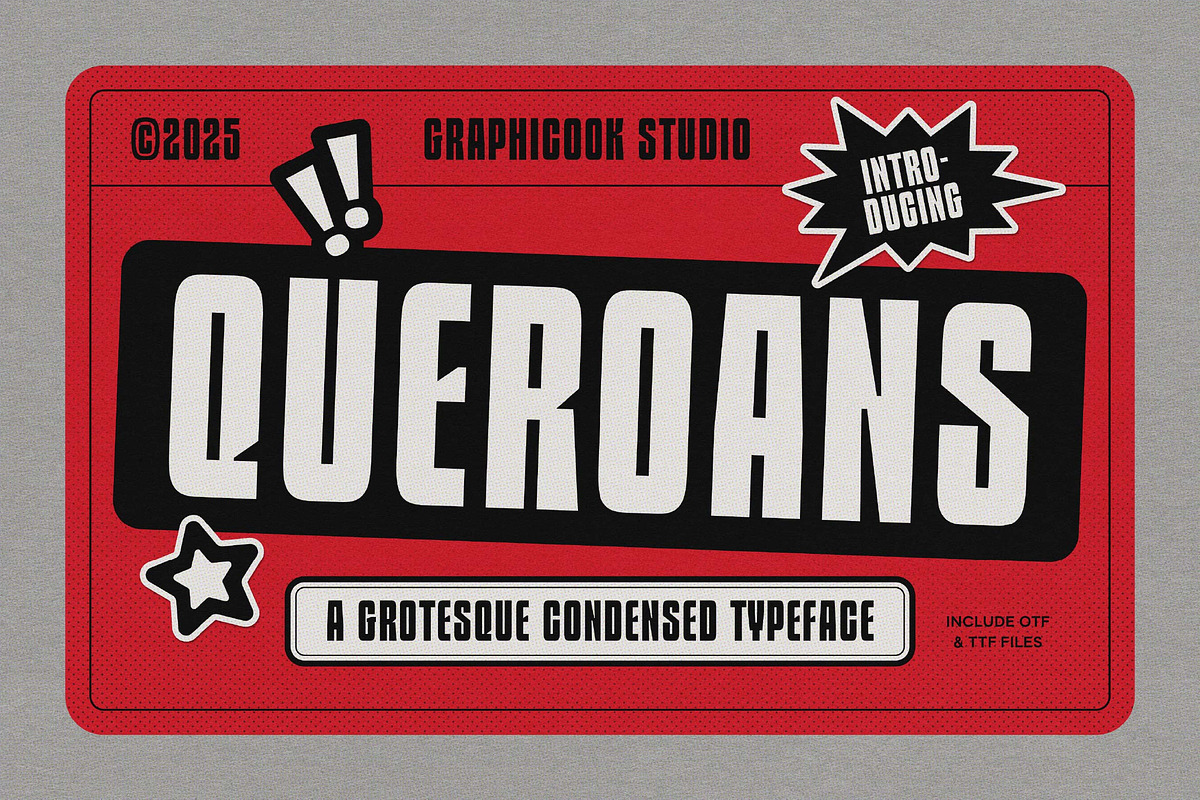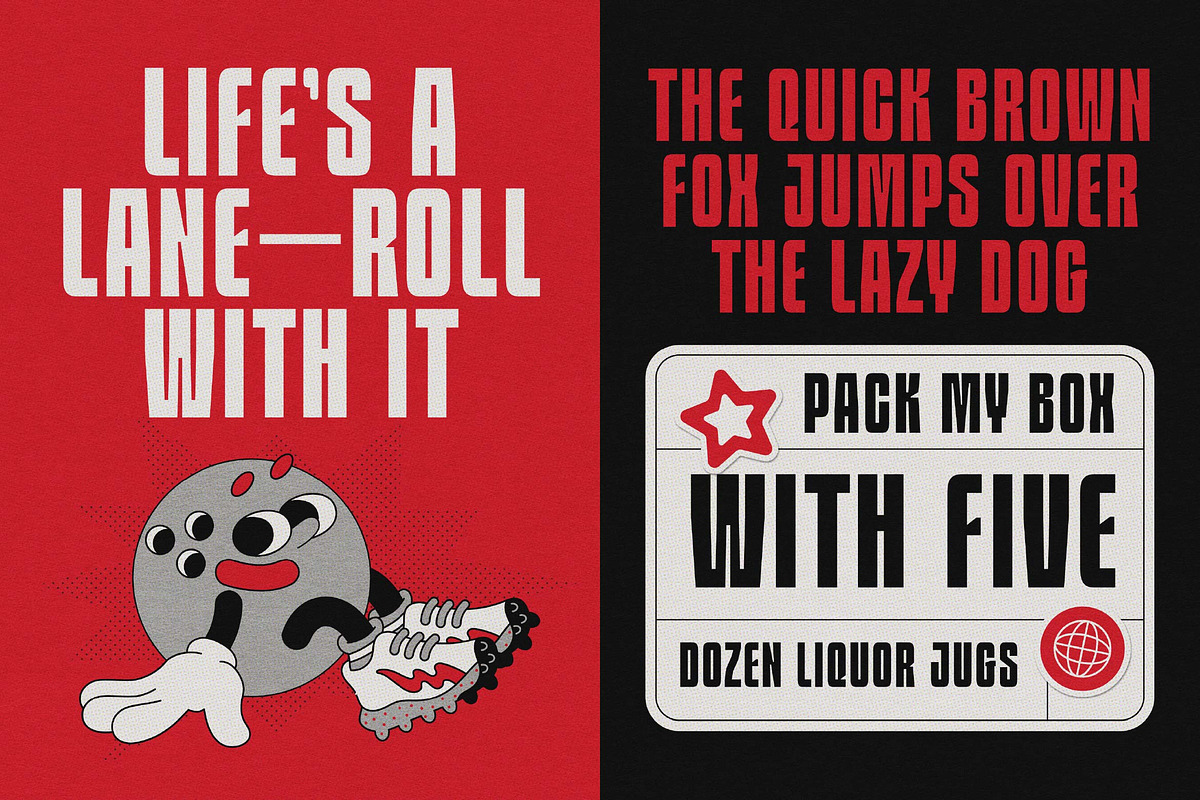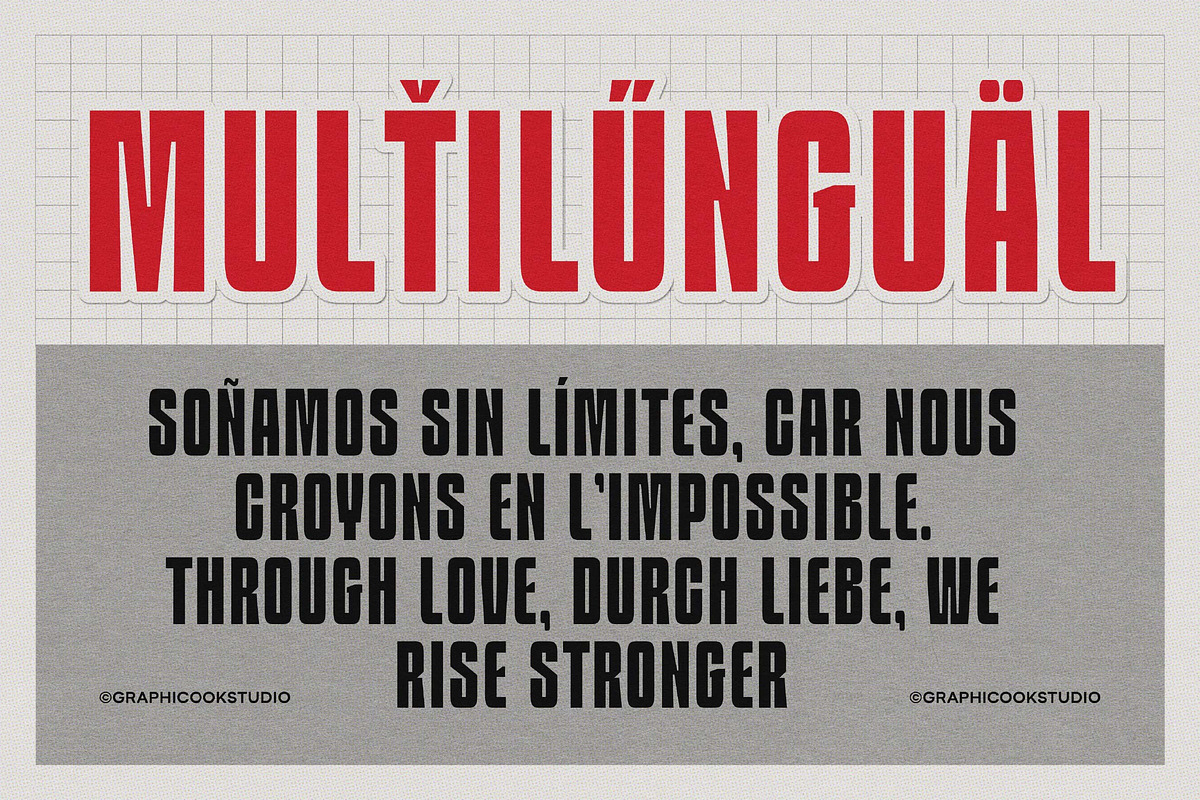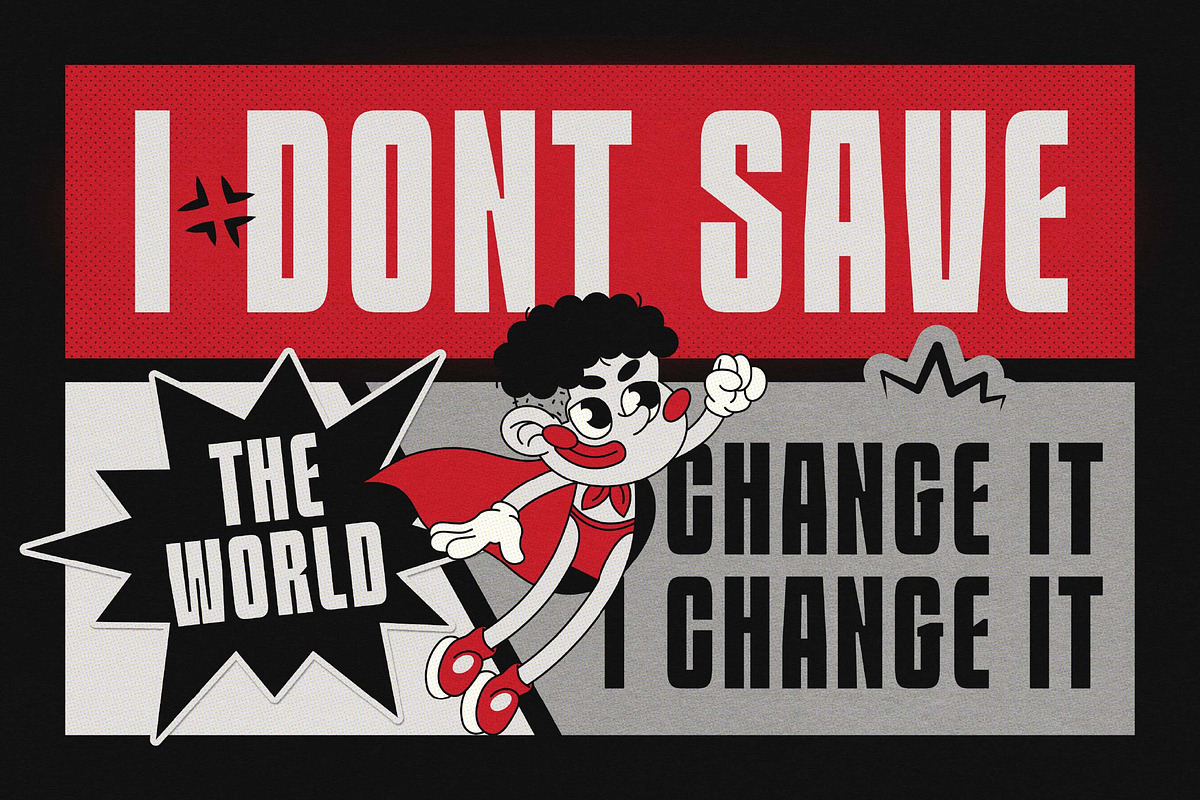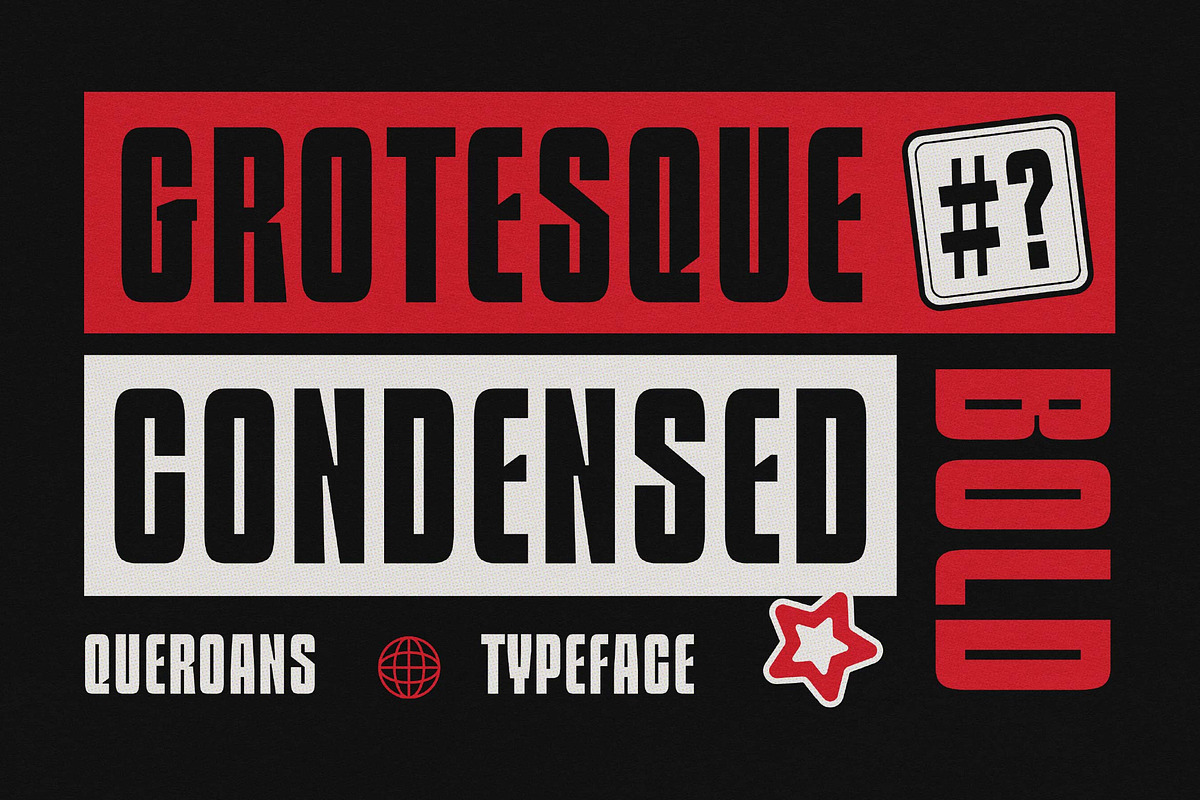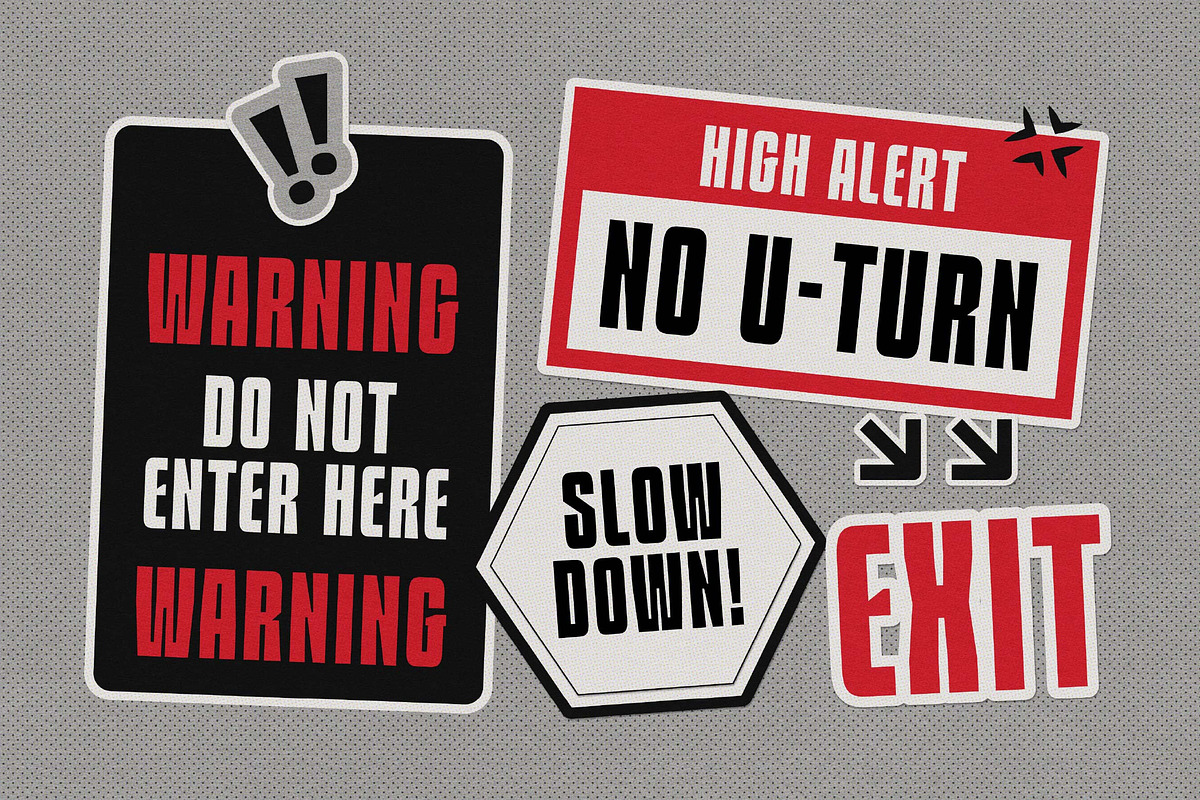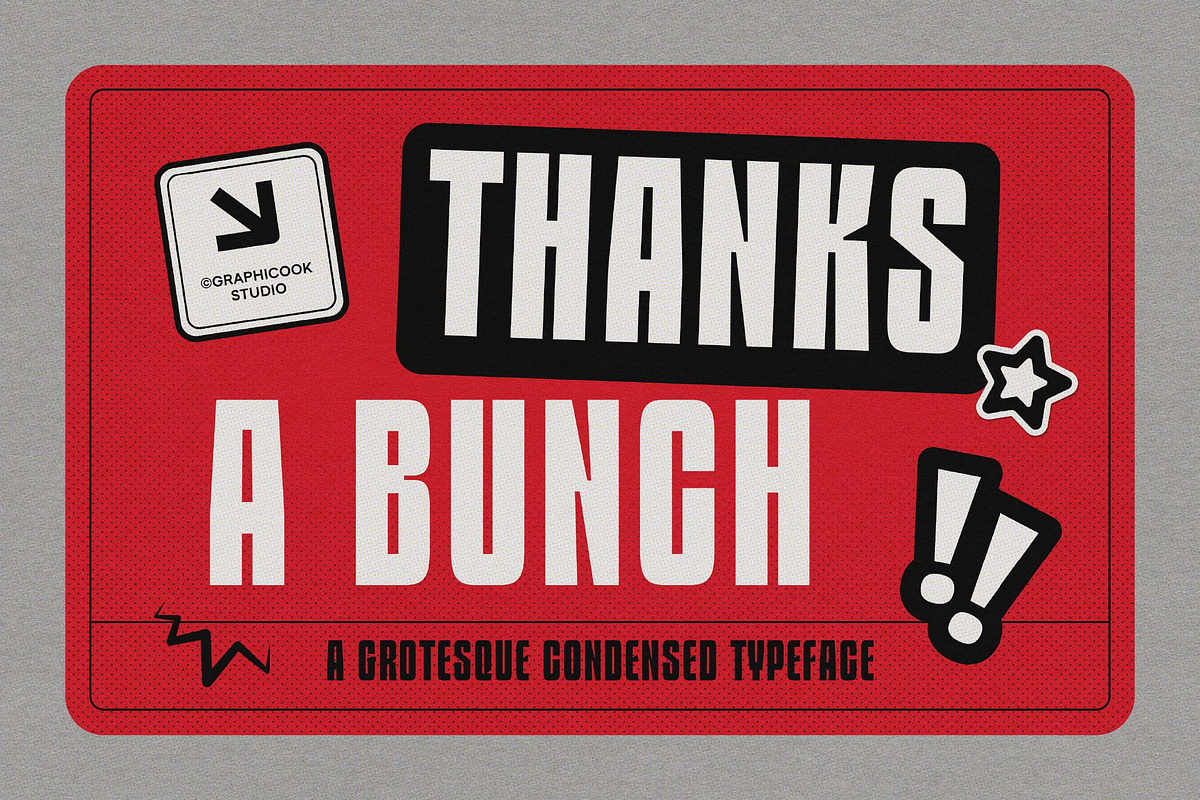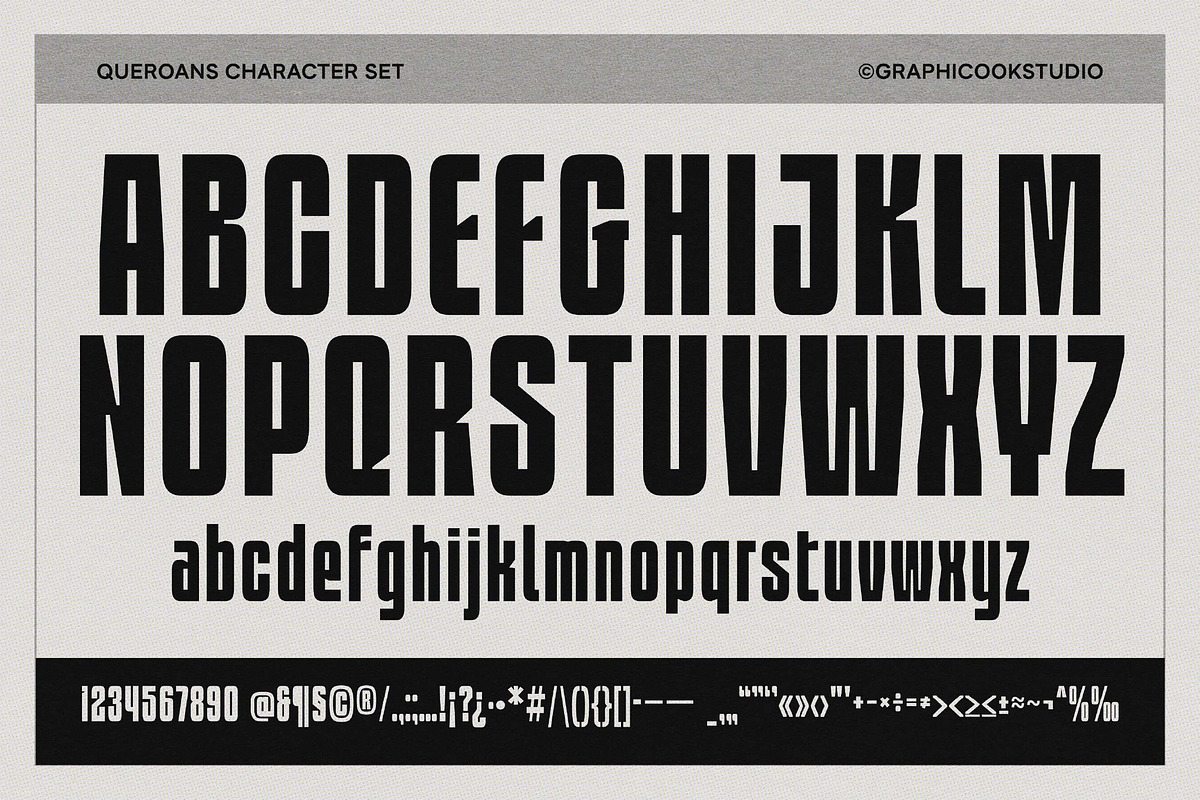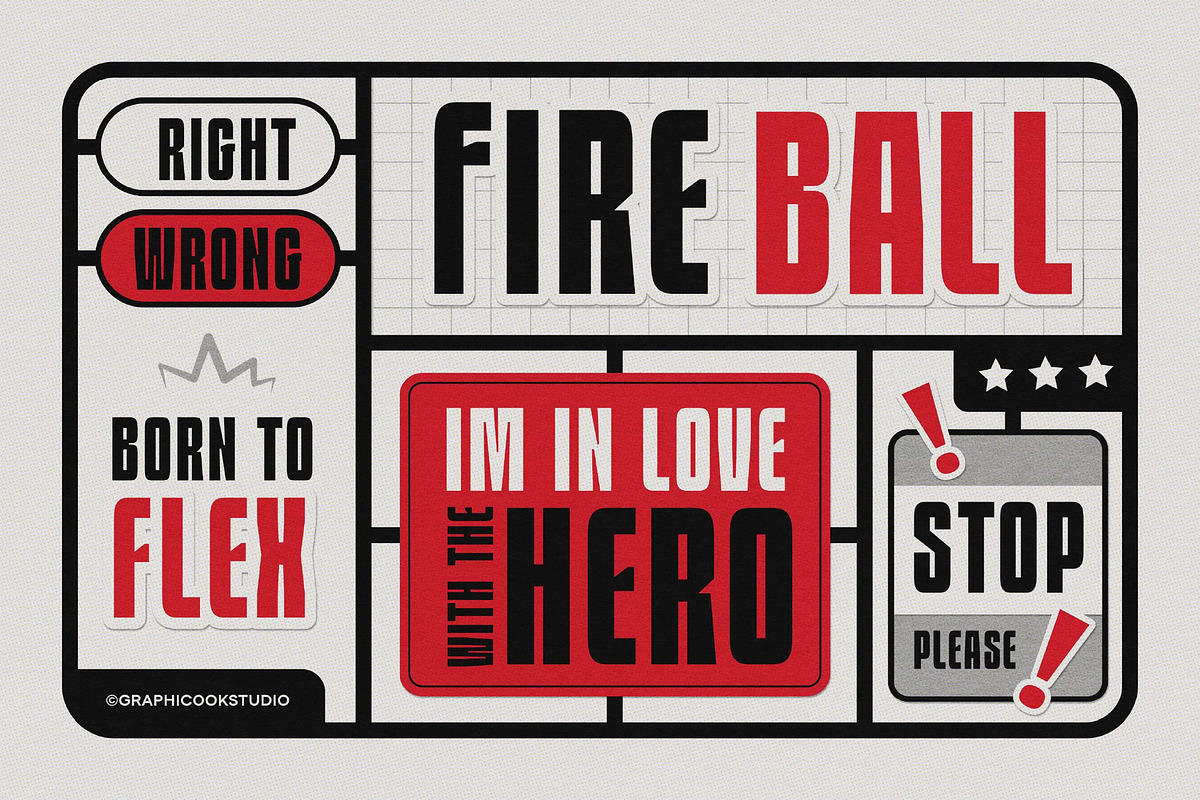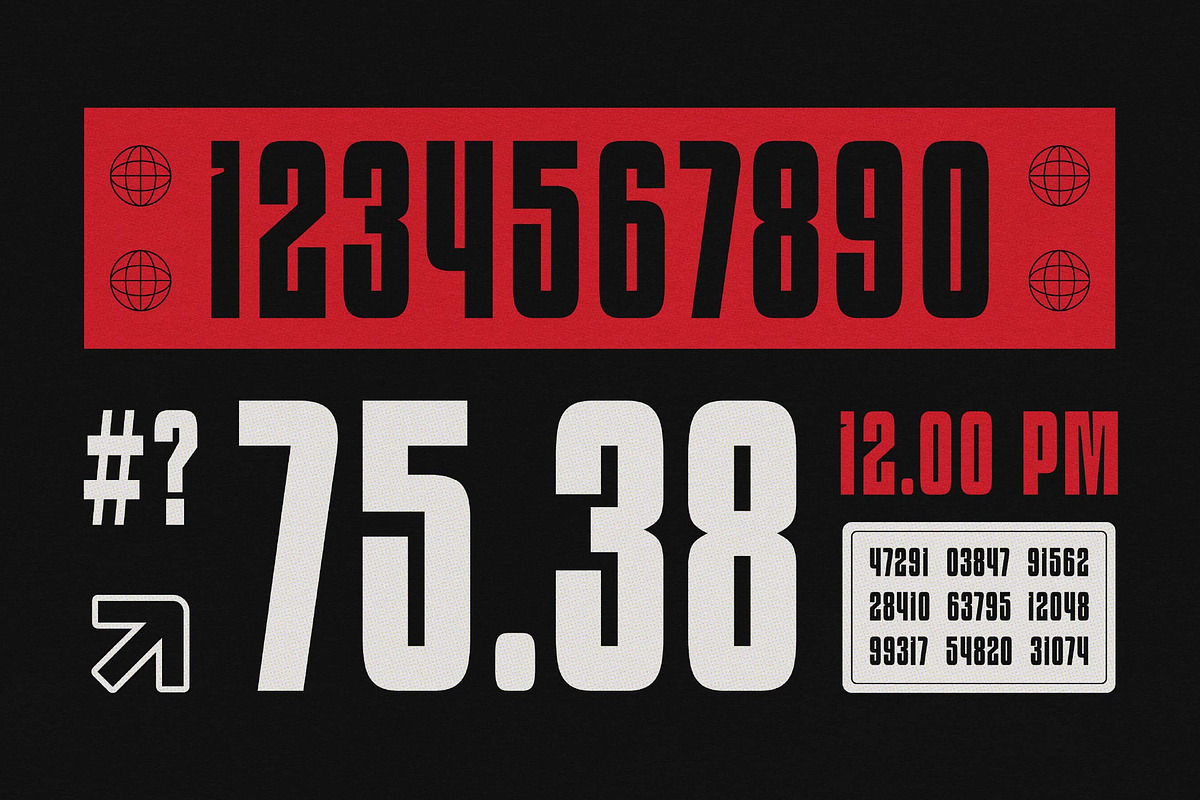
Queroans
Queroans is a sans-serif font with a condensed, bold structure, exuding a masculine and striking presence. Suitable for headlines, logos, and bold visual statements.
It is perfect for headlines, logotypes, magazines, packaging, quotes, movies, games, cover albums, book covers, and flyers, it's a perfect solution for creating eye-catching designs that stand out in any context.